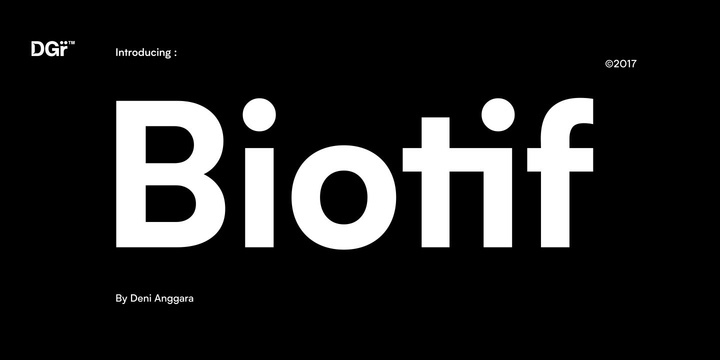
Biotif Font
Biotif Font is perfect for biotechnology companies, pharmaceutical research institutions, medical innovation platforms, life sciences organizations, genetic research facilities, and biological discovery services. Its scientific character makes it ideal for biotech startups, molecular biology labs, pharmaceutical development firms, medical device manufacturers, bioinformatics platforms, and any project requiring biological precision with scientific innovation and life science excellence appeal.
This font is exciting because it embodies the cutting-edge nature of biological research and medical innovation while delivering exceptional functionality for organizations at the forefront of life science discovery and biotechnological advancement. The precisely engineered letterforms reflect the systematic approach and scientific rigor required in biological research, creating typography that inspires confidence in audiences seeking breakthrough medical solutions and biological understanding.
The Biotif Font family typically includes Light, Regular, Medium, and Bold weights with scientific alternates, biological ligatures, and research elements that enhance its innovative personality. This comprehensive collection enables biotech professionals to create authoritative brand systems that maintain scientific credibility while offering flexibility for various life science applications requiring both research authority and contemporary biotechnology market positioning.
Whether you're developing identity systems for biotechnology corporations, creating materials for medical research conferences, or designing interfaces for biological discovery platforms, Biotif Font Free Download delivers the scientific authority and biological sophistication that resonates with life science communities worldwide. Its innovative presence ensures professional brand recognition across digital platforms and print materials, making it perfect for websites, mobile applications, and biotech campaigns that celebrate biological discovery, medical innovation, and the transformative power of life science research with contemporary scientific standards and authentic biotechnology excellence.